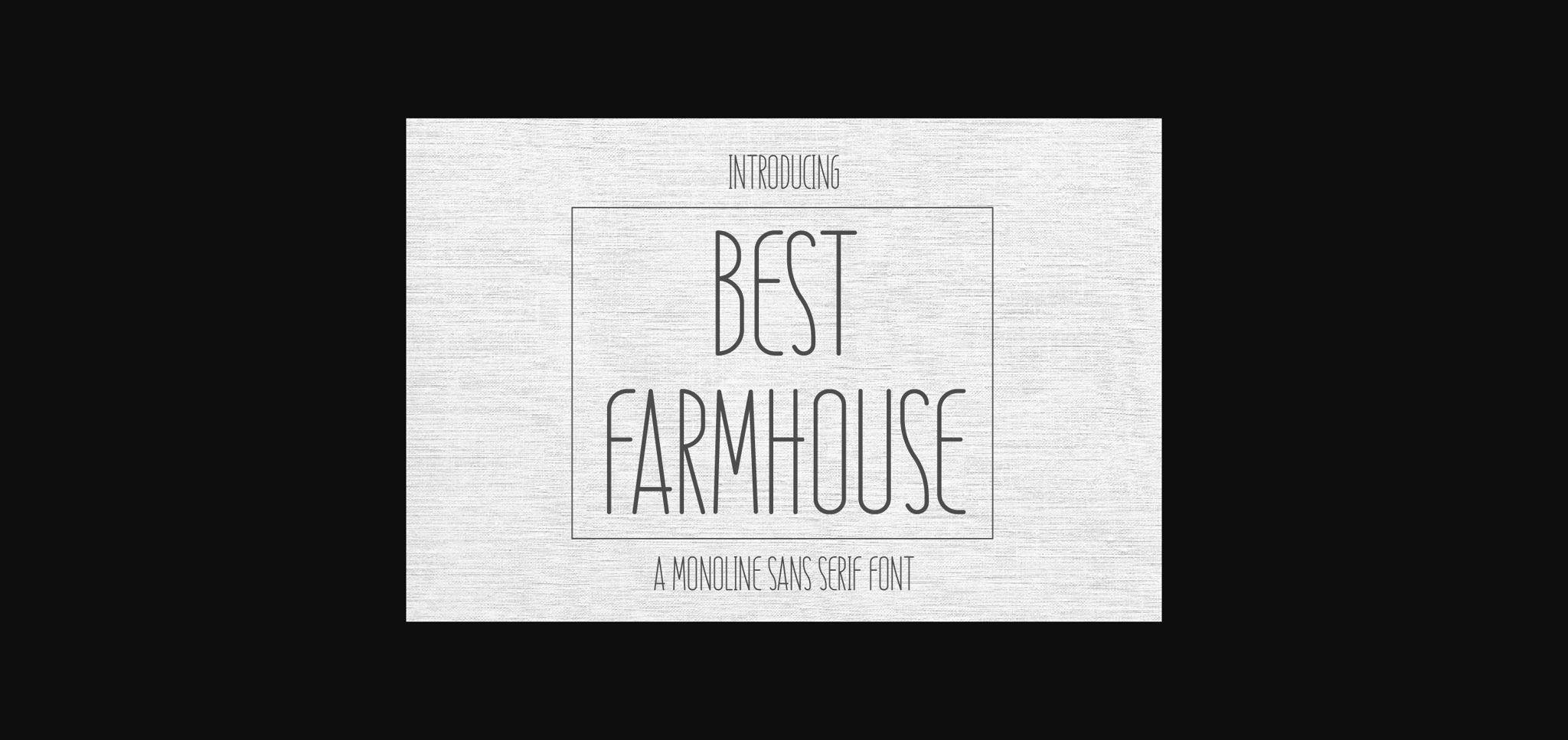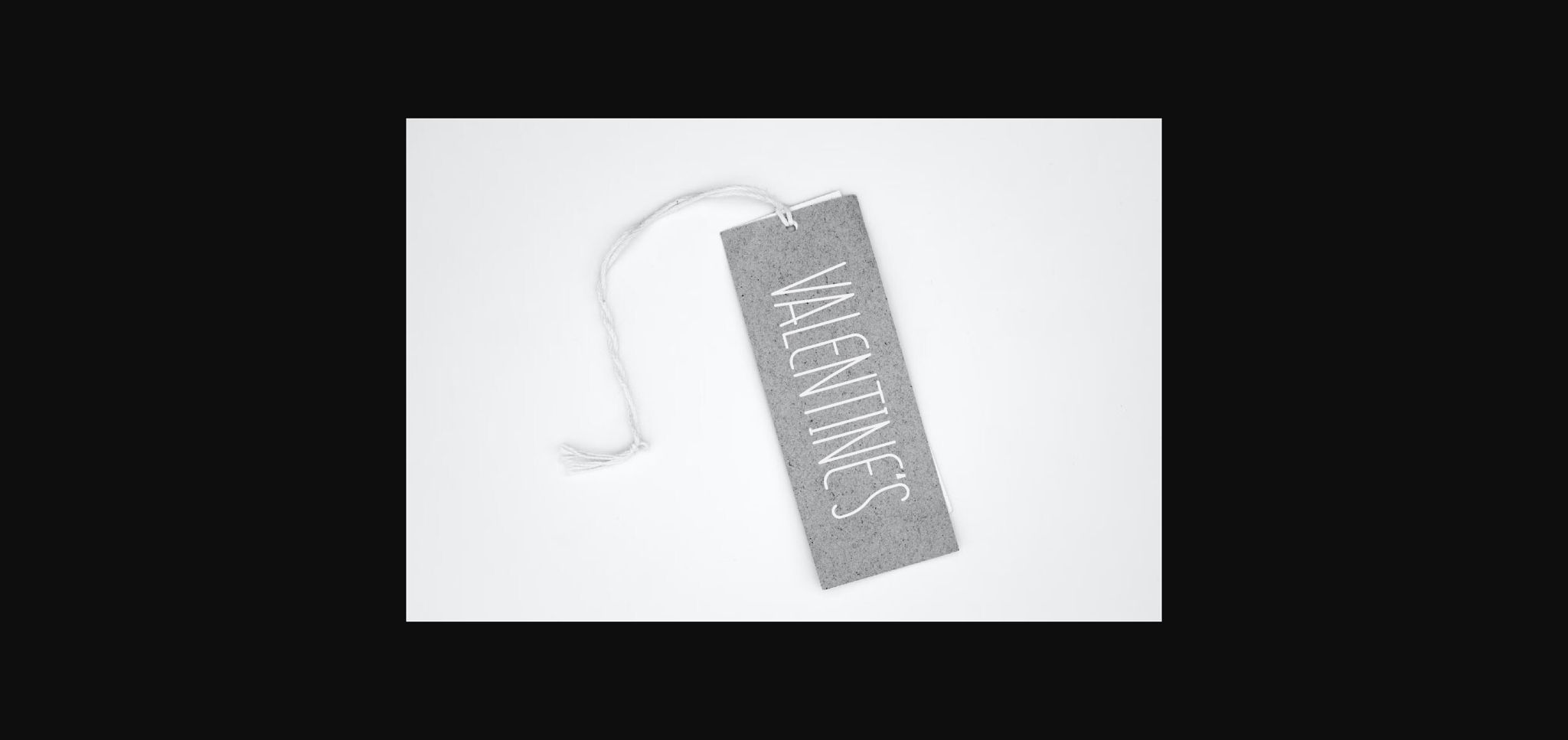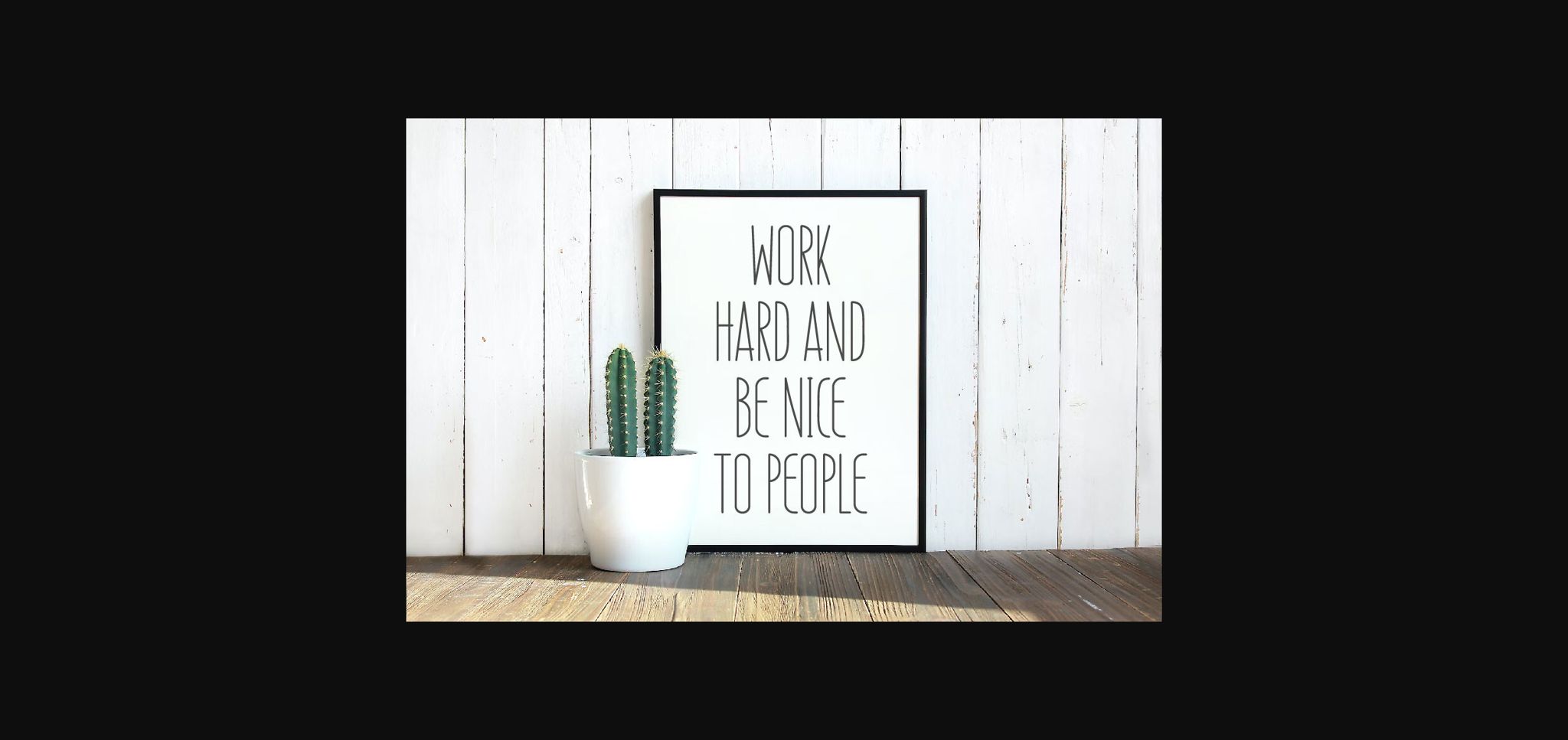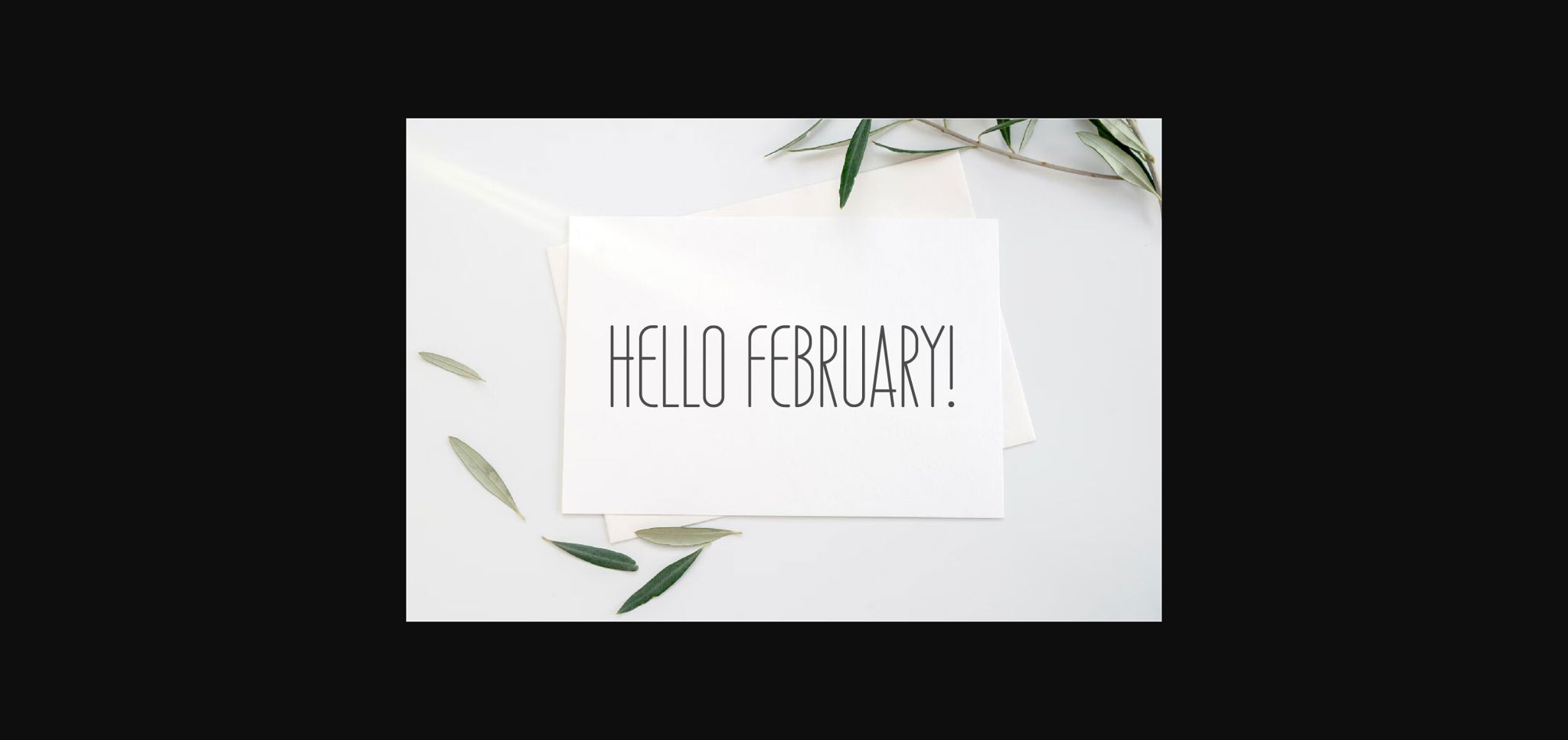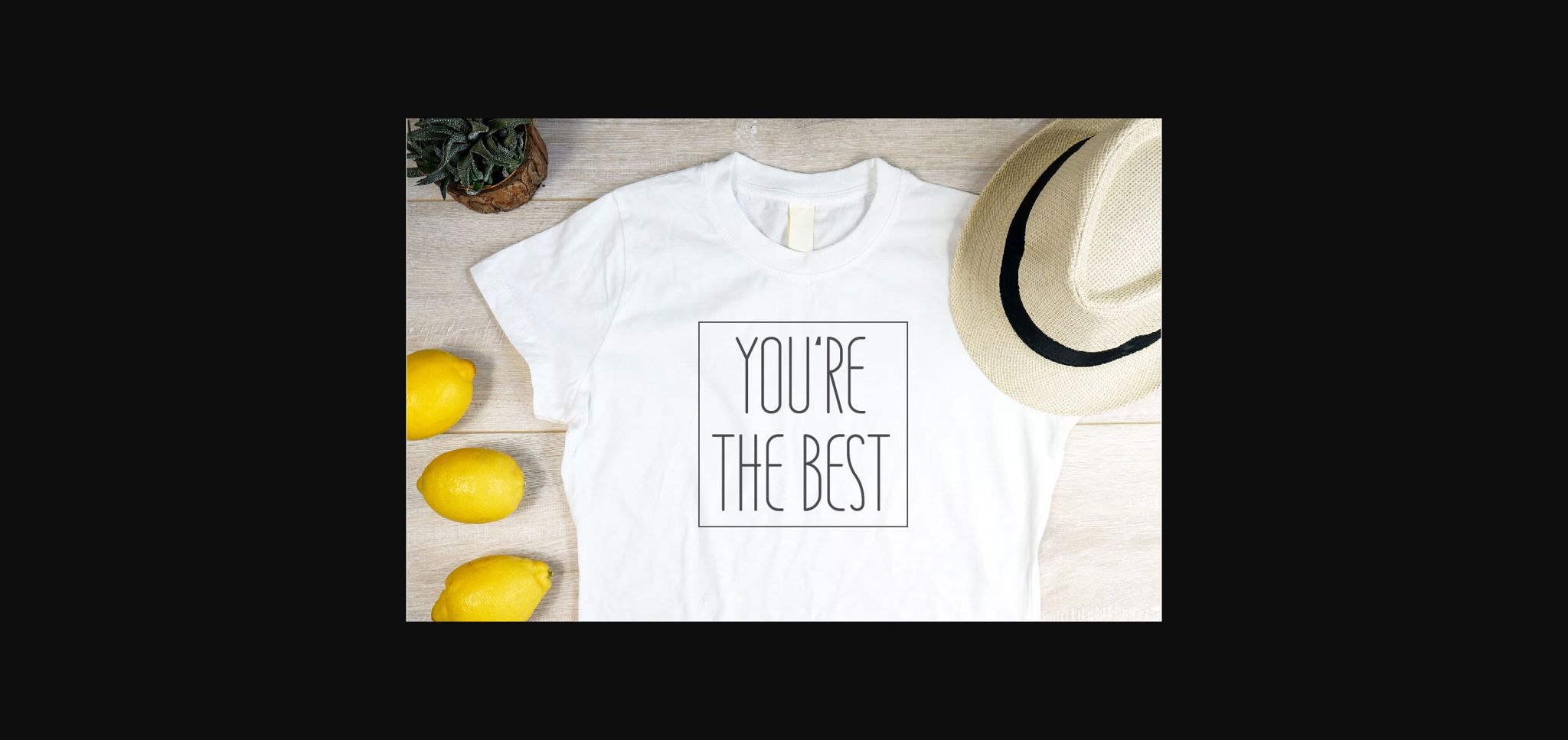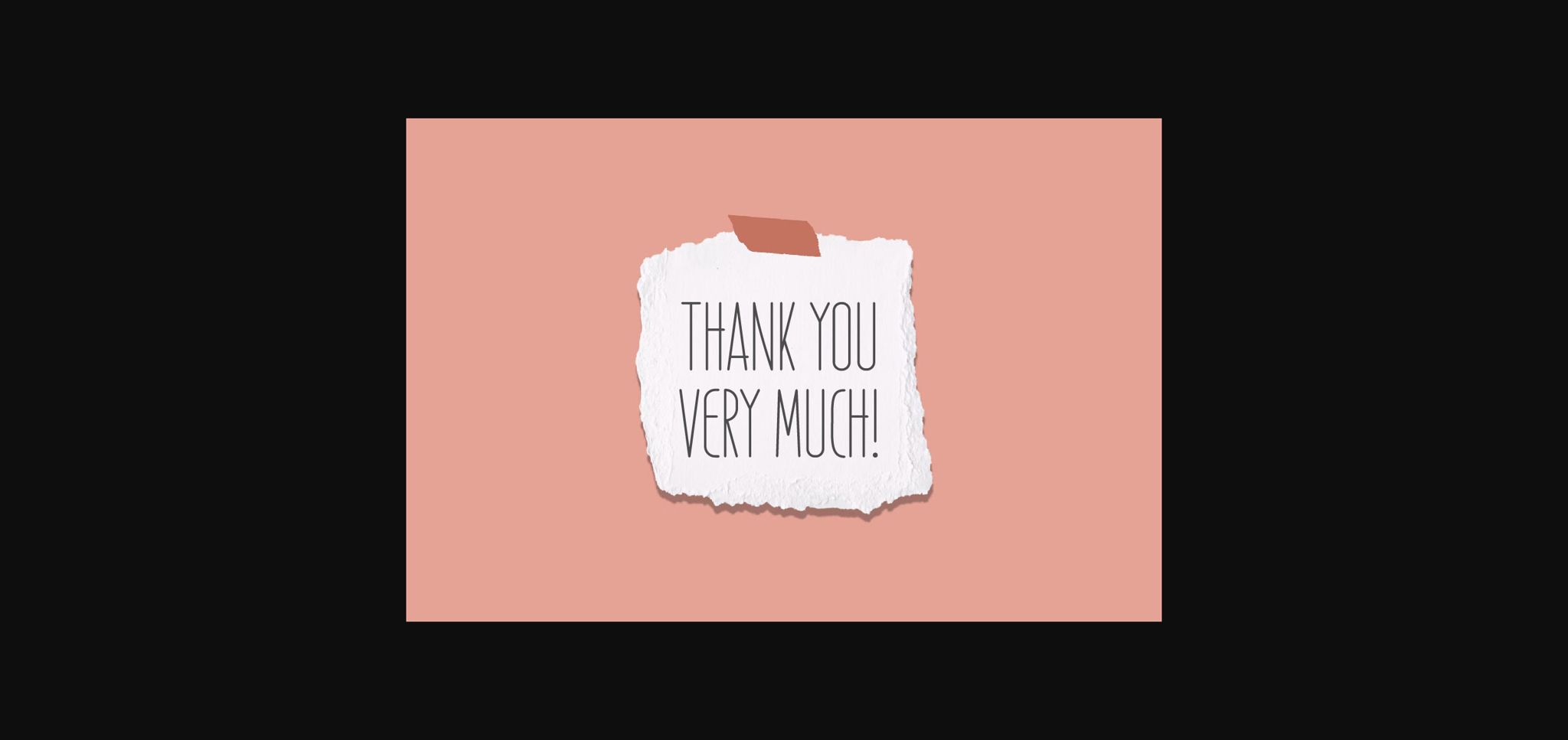
Best Farmhouse Font
About Best Farmhouse Font
Best Farmhouse is a cute sans serif font, this font is perfect for greeting cards, wedding, gift labels, mugs, t-shirts, quotes, label, etc. Use it to create spectacular and interesting designs!